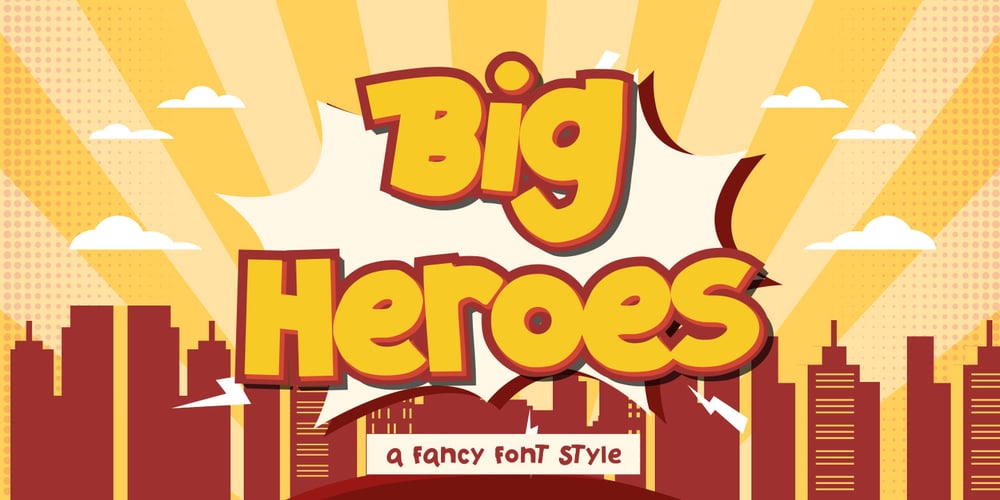
Big Heroes Font Family was designed by Hilmius Akbar and published by Typefactory. Big Heroes contains 1 styles and family package options. Big Heroes is playful font which puts a smile on your projects and will inspire you to create something fun and memorable.It is perfect for headings, flyer, greeting cards, product packaging, book cover, printed quotes, logotype, apparel design, album covers, etc